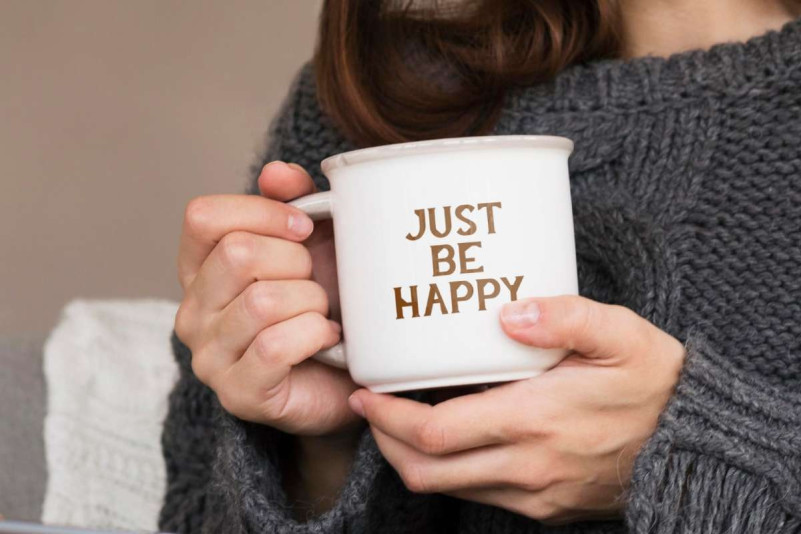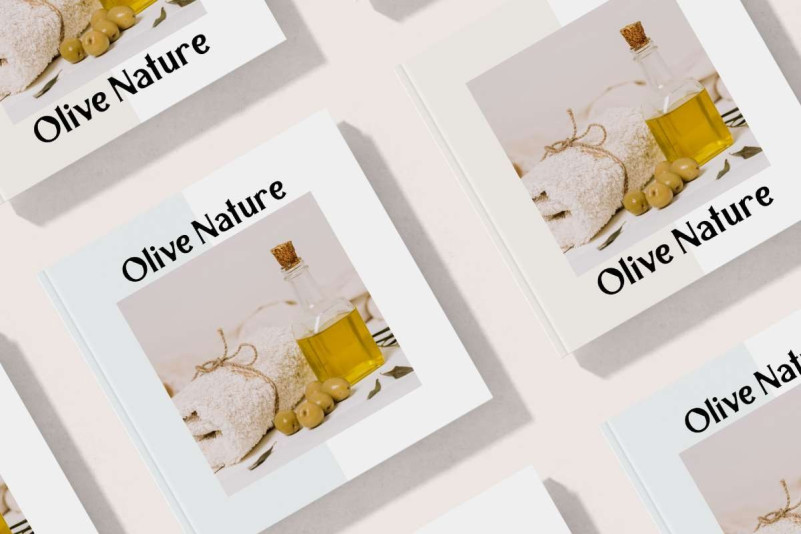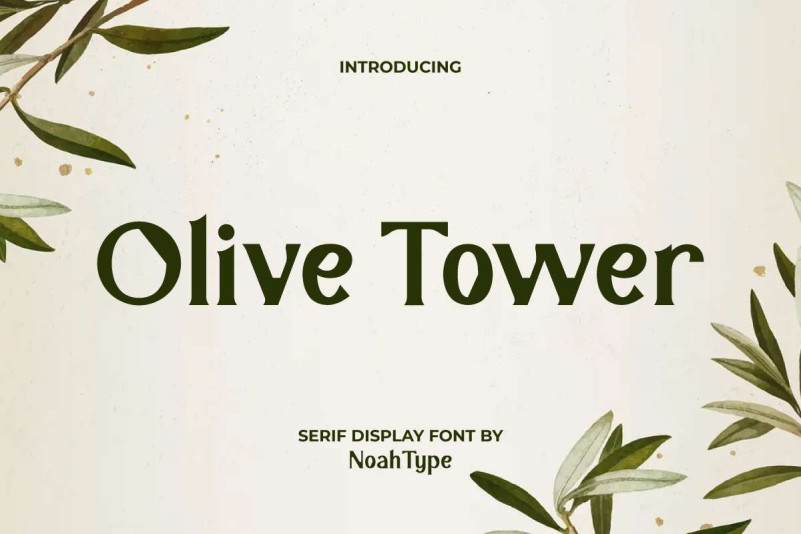
Olive Tower Font
Olive Tower Serif Font is a unique display font inspired from beautiful Olive Flower with special accent on its corner of the letters exclusively designed by NoahType. This font comes in two different styles : Regular and Bold. It would be the best choice for many industries, such as beauty product, fashion, florist, furniture, handicrafts, health clinic, spa and salon, printing, publishing, real estate, writer, and more!
Olive Tower Font include full set of Uppercase and Lowercase Basic Characters, Numerals and Punctuation. This font would be perfect for projects that require a modern and stylish feel, such as brand logo, calendar, catalog, label, header, mockup design, poster, product packaging, quotes, screen print, signage, stationery, website, etc.